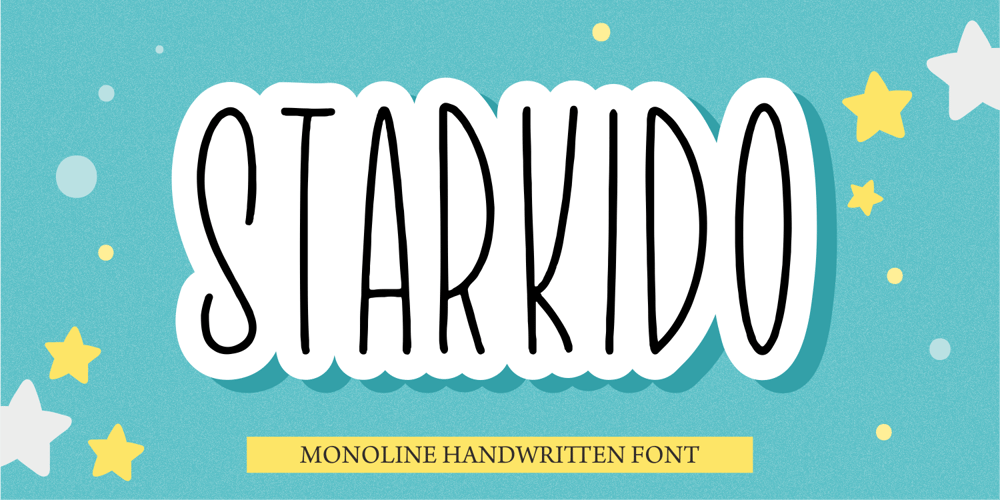
Starkido
Starkido font
Starkido Font Family was designed by ANGGI HERMAWAN and published by Forberas Club. Starkido contains 1 styles and family package options. Introducing Starkido by Forberas ClubStarkido is a handwritten script font that will make your designs look classic, Farmhouse, and Boho. It is a great font for events, wedding invitations, fashion, apparel, signature, album covers, logos, branding, magazines, social media posts, advertisements, but will also work great with any other project. Add it to your fonts’ library to enhance your creativity!Starkido is best for: – logos, branding & signatures- Flyers, album cover, magazine & advertisement – Website design, design blogs & fashion- Quote graphics for social media – Also works great with any other projectWhats included : – Font provided in OTF format- Numerals and Punctuation- Accents (Multilingual characters)If you have any questions, before or after purchase, please feel free to get in touch.